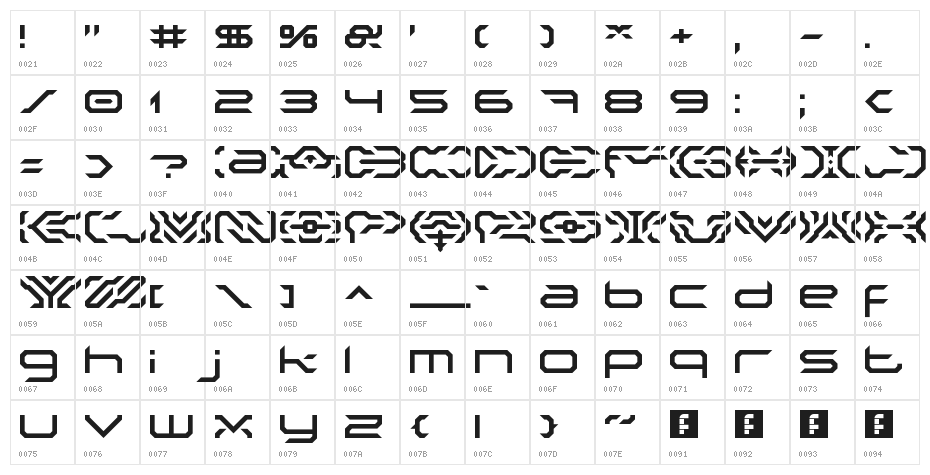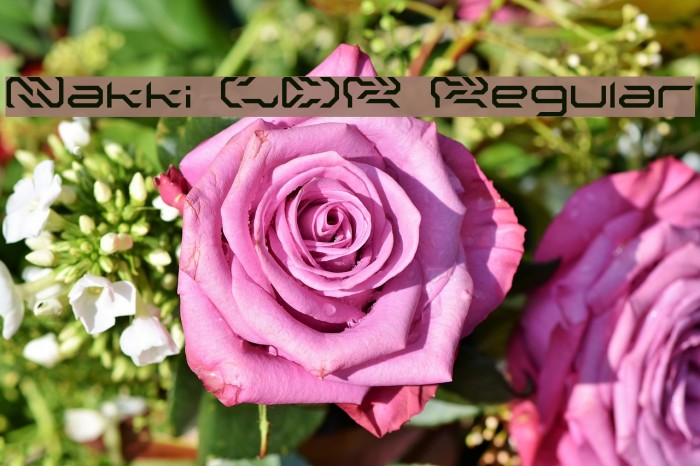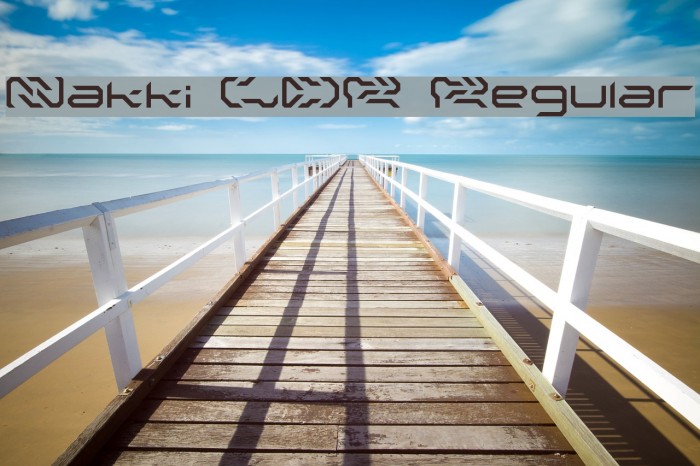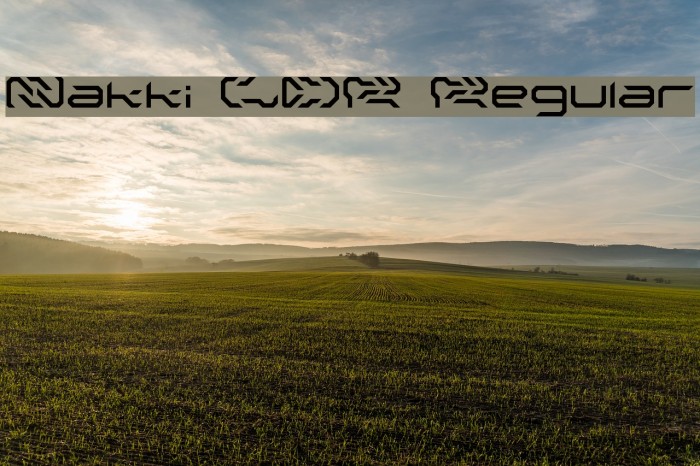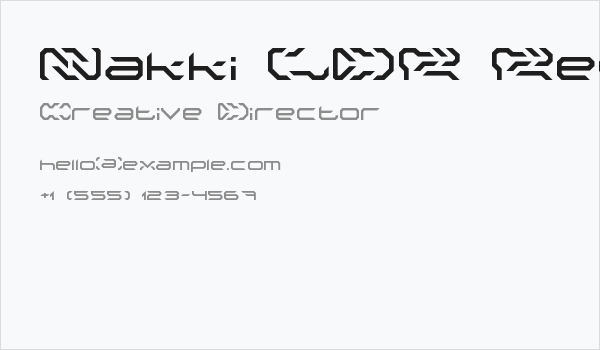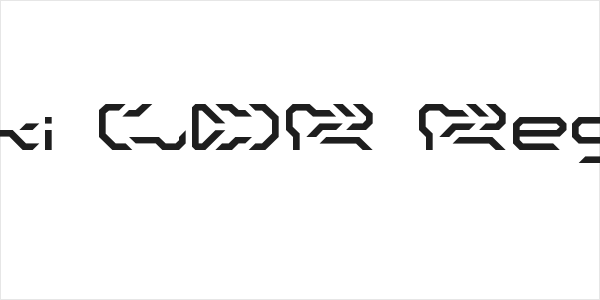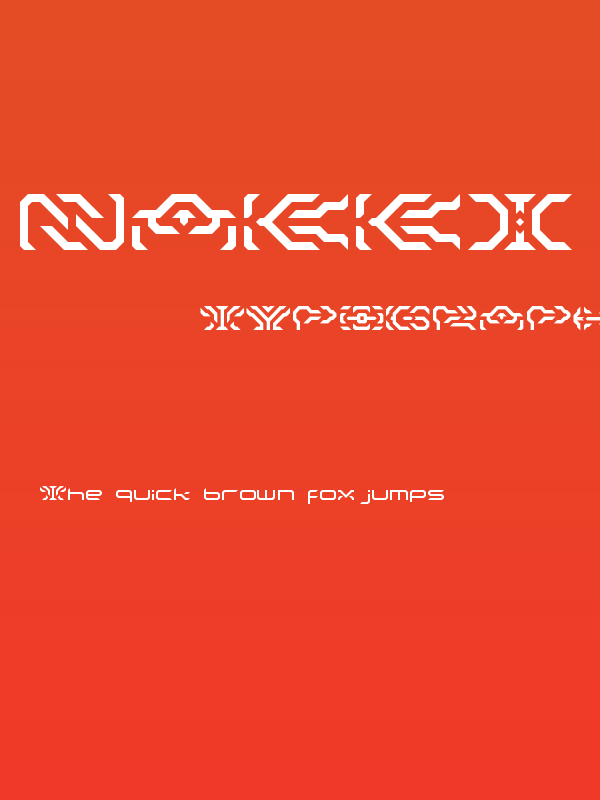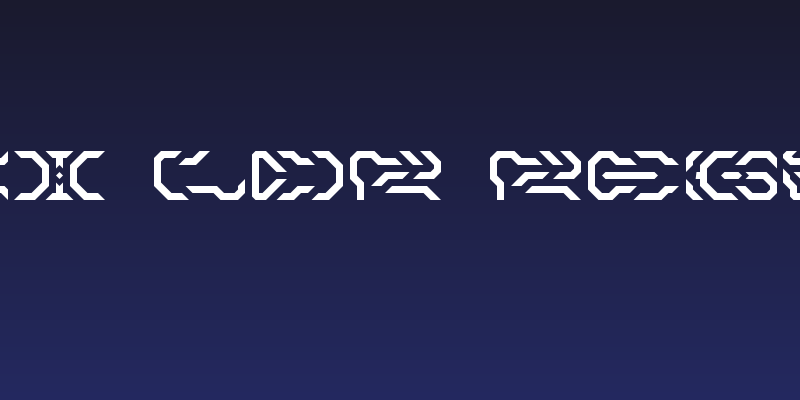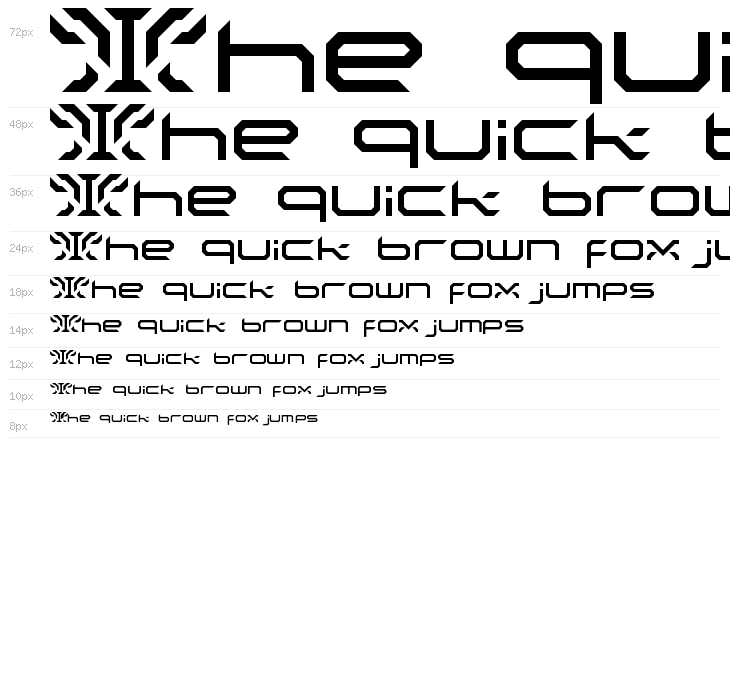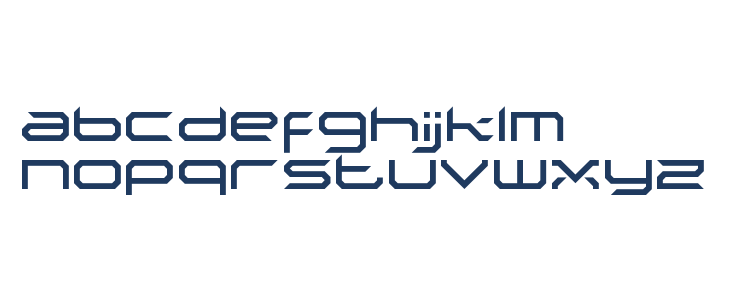
Nakki LDR Regular Font
Nakki LDR Regular Description
This font features a futuristic and geometric design, characterized by sharp angles and a bold presence. The uppercase letters are highly stylized with intricate patterns, giving them a unique, almost alien-like appearance. The lowercase letters maintain a more traditional form but still carry the geometric theme with angular cuts and edges. Numbers and special characters follow the same design principles, ensuring consistency throughout. The overall look is modern and edgy, making it suitable for projects that require a distinctive and eye-catching typeface.
| Proposed Projects | Ideal for sci-fi themed designs, video game interfaces, tech branding, and futuristic posters. |